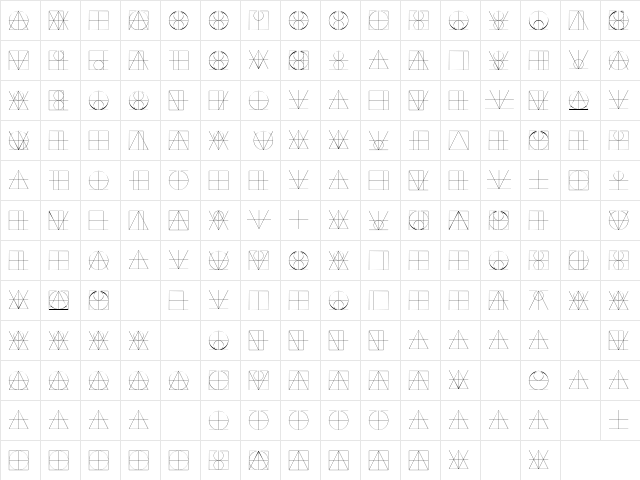
LTReneeDisplay Lines Regular Font Preview
LTReneeDisplay Lines Regular
Design Context for LTReneeDisplay Lines Typeface
LTReneeDisplay Lines brings ornamental detail and strong personality to headlines and identities, where visual impact matters more than quiet functionality.
Font Pairing: Pair with a clean neutral sans-serif for body copy to let LTReneeDisplay Lines's character lead without overwhelming the composition.
Pro Tip: Use LTReneeDisplay Lines exclusively at display sizes — it was designed to be seen, not read at length. Let a neutral companion handle body copy.